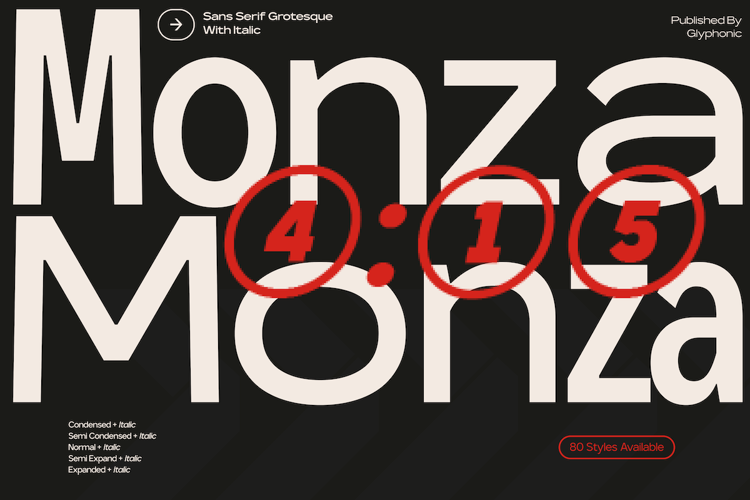
GC Monza Sans Font
Semi Expanded + Italic
Expanded + Italic
Multiple Weights Across All Widths
This full-spectrum width system allows designers to create strong hierarchy, consistent branding, and highly adaptable typographic systems across print and digital environments.